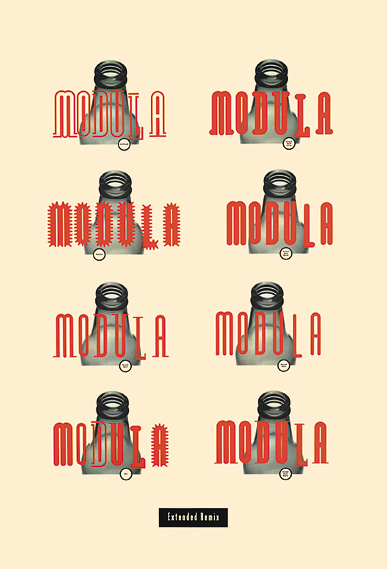
Modula Round & Ribbed
By Zuzana Licko
This text was first published in 1995 on the reverse side of the promotional poster for Modula Round & Ribbed.
Emigre's Modula Family, introduced in 1986, was among the first typeface designs in the Emigre Fonts foundry. After eleven years of observing it in use, Emigre is releasing several design extensions to this Family. Some of the new design variations are in response to usage, others were made possible by the more sophisticated font design tools that are available today.
When we first started manufacturing Emigre Fonts, the font format was still a very closed environment. Once we manufactured the installable and downloadable files, the user was limited to setting type with the typeface as we had designed it. Years later, it became possible for designers to import the character outlines into drawing programs which enabled them to then alter individual letters in order to create customized letter and word combinations. Within a short time I began seeing mutated versions of Modula letterforms used in various applications, such as logotypes. Many of these had the diagonal serifs removed or some of the stark diagonal forms smoothed out. Unfortunately sometimes the alterations were not very well drawn. In answer to this I recently decided to redraw Modula, incorporating some of these ideas within a coherent font design.
After considering the elements to be incorporated, It became apparent that "rounding" was the theme. The first step was the removal of the diagonal serif elements. As a less stark alternative to the angular diagonals that related to the now abandoned diagonal serifs, I decided to use a flowing curved diagonal in the letter such as 'k x s & z.' Then, to carry the rounding theme further, I rounded the end strokes. Removing the diagonal serifs also served to round out the outside letter shape of characters such as 'a d g m n p q r & u.' (The diagonal serifs in my original Modula design served to make word shapes more recognizable, by making them somewhat consistent with traditional letterforms.)
In contrast to this, the round versions seemed obviously more suited to headline applications and therefore, I decided to produce them in a narrower, more elegant proportion. Because this narrower proportion creates an essentially "taller" letterform, it was possible to add small caps versions, since now the capital letterforms could be fit into the space of the x height. The small caps, in turn, provide a wider variety of formal choices when composing headlines or logotypes.
In addition to the 4 Sans and 6 Serif versions in the Round series, there are also two decorative versions, Outlined and Ribbed, that resulted from my experiments in extending this Family.
The "Ribbed" version is a kind of spoof. I'm sure everyone has seen (perhaps even admired) typefaces that are made by superimposing a graphic, such as the American Flag, or a woodgrain pattern over an existing typeface. Modula Ribbed is somewhat like that, except that the pattern (the ribbing) actually relates directly to the "modular" form of the underlying typeface, which would not have been as adaptable to many other typefaces. The ribbed effect itself was made possible by the advanced drawing tools in the current Fontographer. (The early version which was used to draw the 1986 Modula could not have handled so many tight curves. Perhaps even more importantly, the downloadable font, weighing in at 68K even in the new compressed format, would have been too cumbersome to use on the 128K Mac, 512E"Fat"Mac, or the then top of the line MacPlus. (Remember those days?)
The Outlined version is about counterspace, the shapes inside of letters, as well as about the connecting shapes between letters. I started by creating outlines around the Round Sans version. Then I worked on opening up the outline shapes, thereby opening up the boundary between positive and negative space. Then I worked on making the connections compatible between each of the letter combinations. This meant making the positive spaces either connect into a larger positive spaces, or making them enclose a negative space that related to the weight of the positive spaces.